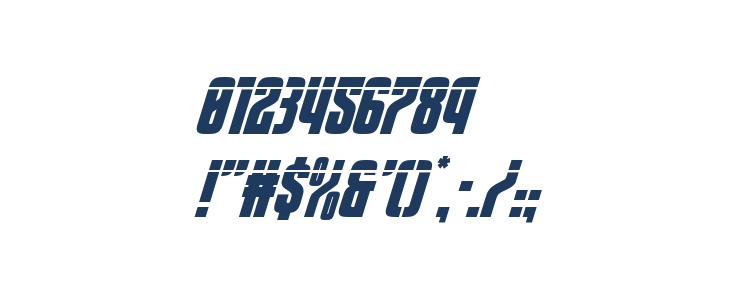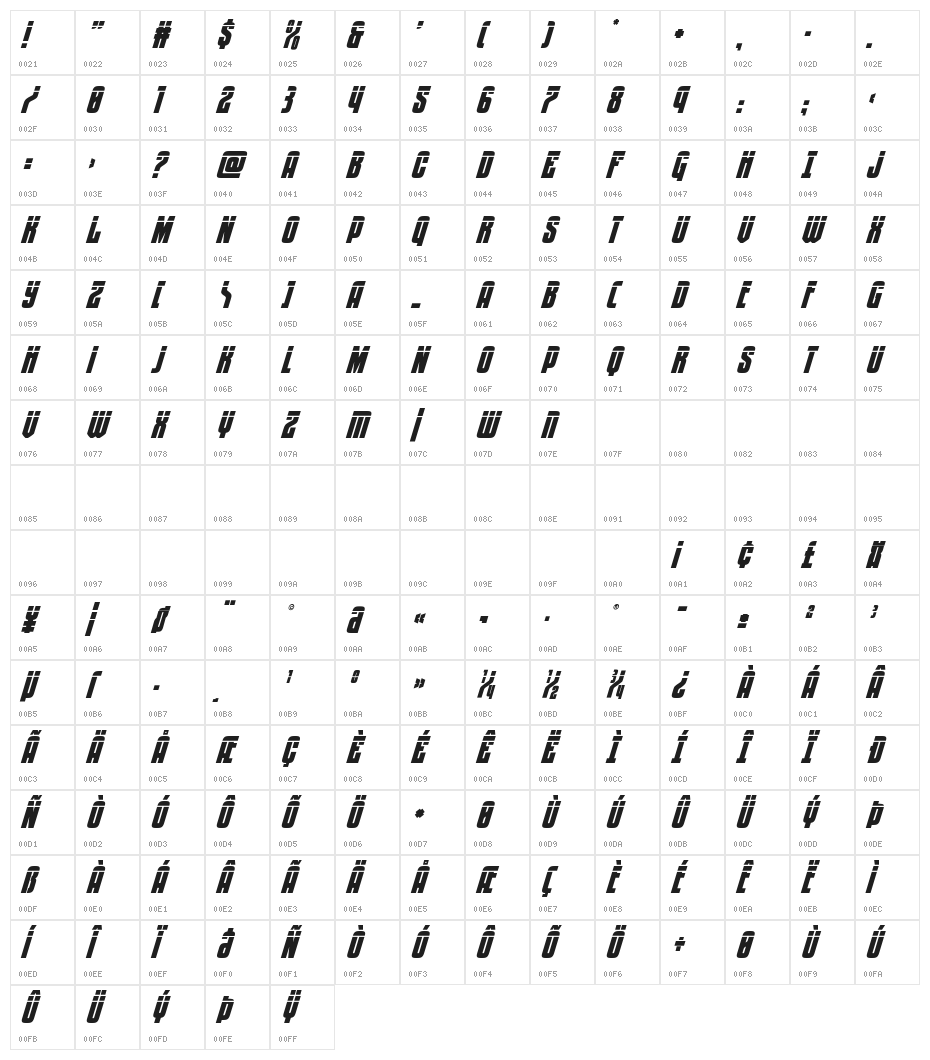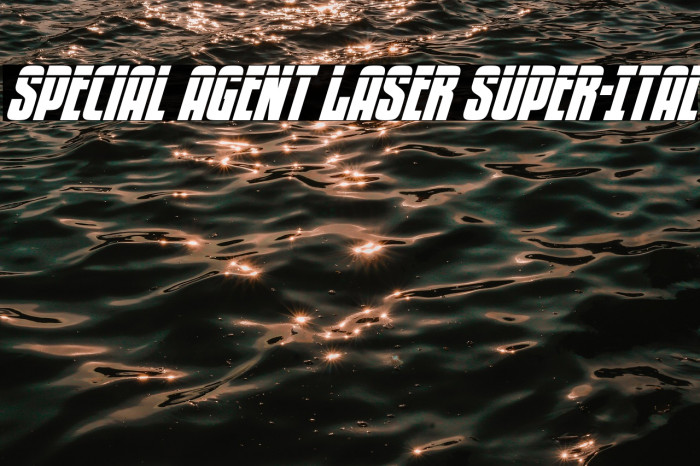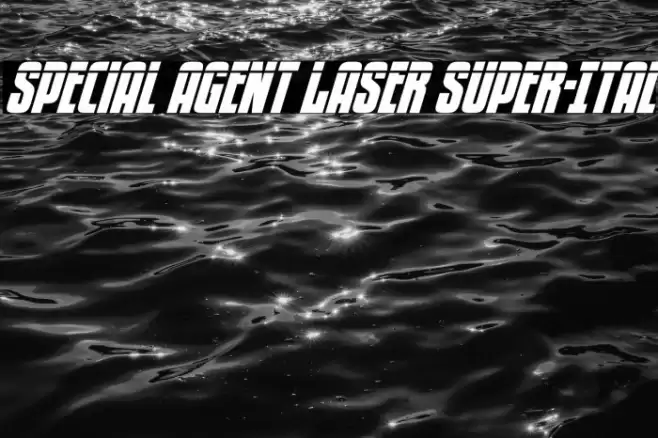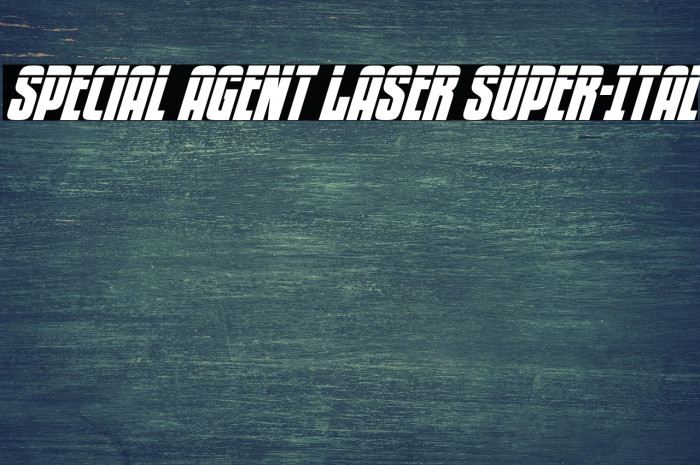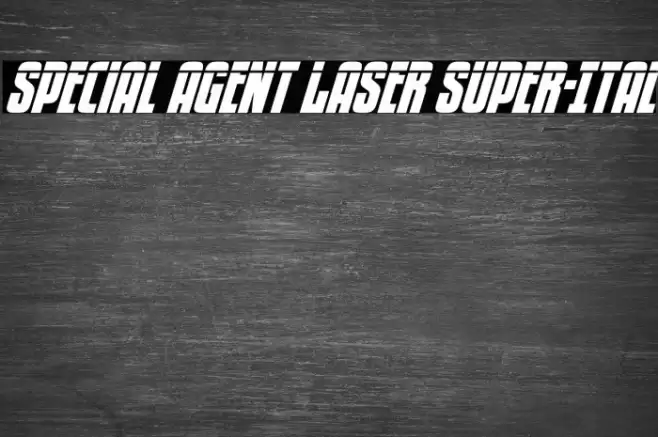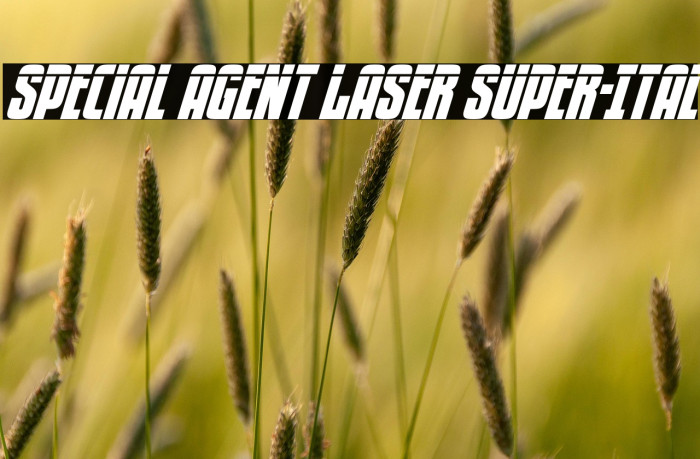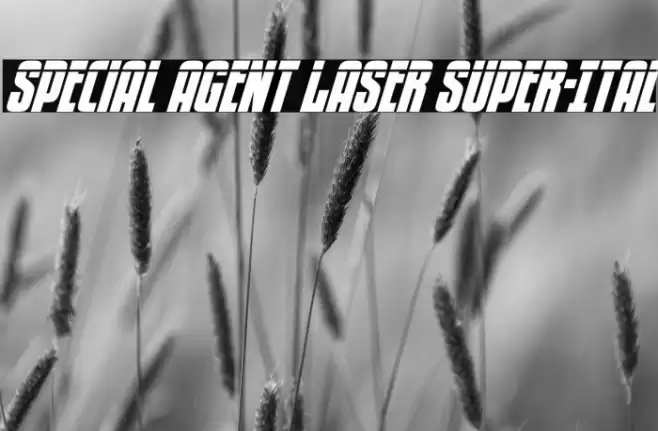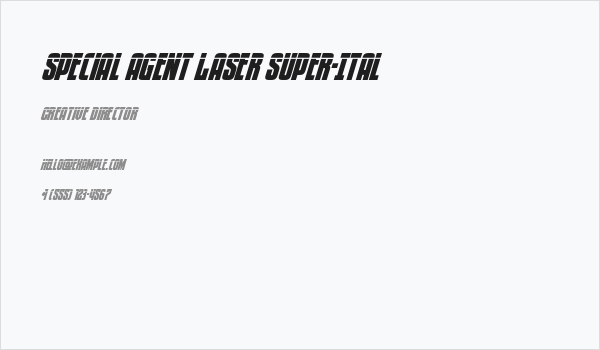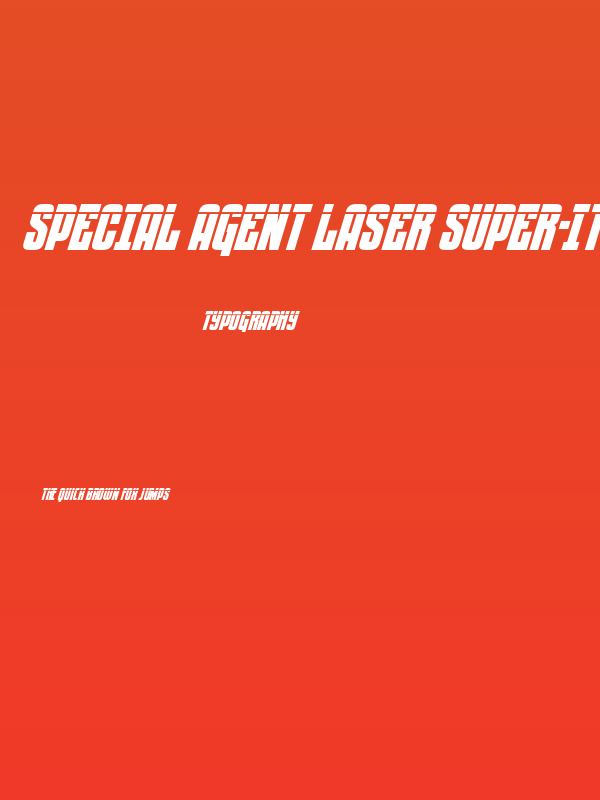
Special Agent Laser Super-Ital Font
Special Agent Laser Super-Ital Description
This font exudes a bold and dynamic presence with its sharply angled, italicized characters. The thick strokes and condensed letterforms create a sense of urgency and movement, reminiscent of high-speed action or futuristic themes. The uppercase and lowercase letters maintain a consistent style, with a strong emphasis on diagonal lines and sharp edges. The numerals and special characters follow suit, ensuring a cohesive look across all glyphs. This font is ideal for projects that require a strong, impactful visual statement.
| Overall Style | Futuristic, Dynamic |
| Proposed Projects | Ideal for action-themed posters, video game titles, sci-fi book covers, and branding for tech companies. |